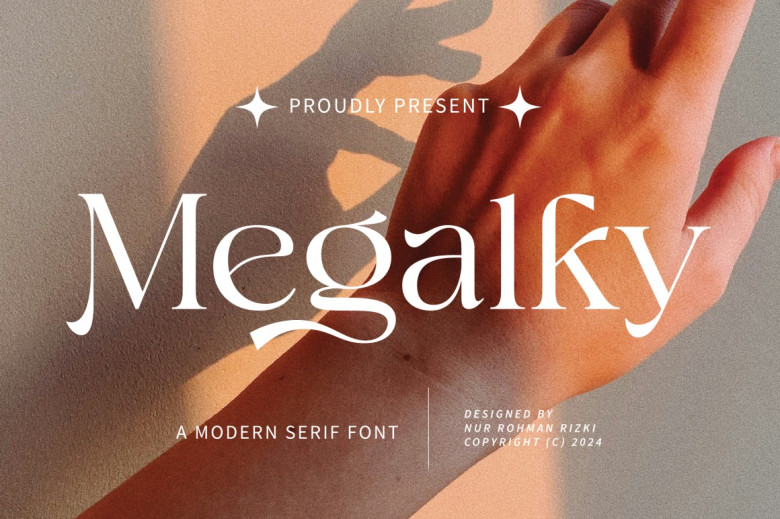
Megalky Font
Megalky is a serif font which has been designed meticulously and thus the font appears very sleek and contemporary. These curves effectively contribute to enhancing the appearance of every written word, therefore, it is a perfect addition for the designers.
Megalky is perfect, for logos and branding, for wedding invitation, lovers’ quotes, labels, pages in social networks, awards and ads, for product’s packing and design, for labels, photos, watermarks, invitations, any type of stationery, and also any work that can be in search of luxurious, rich, and beautiful look.
Megalky Serif Font